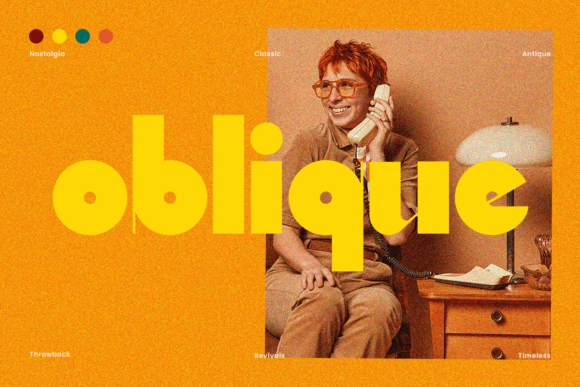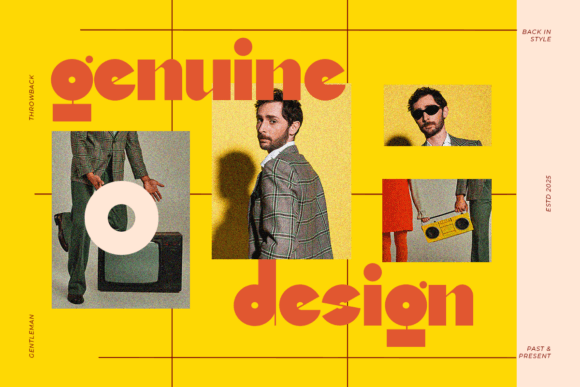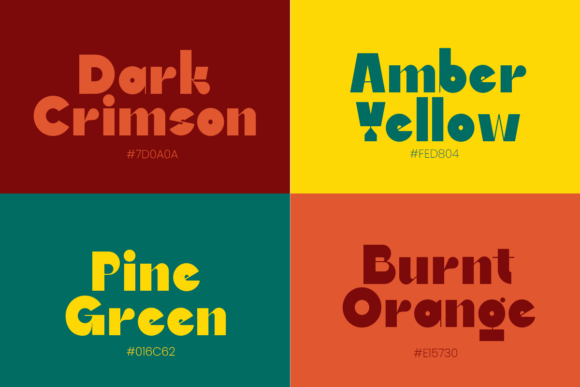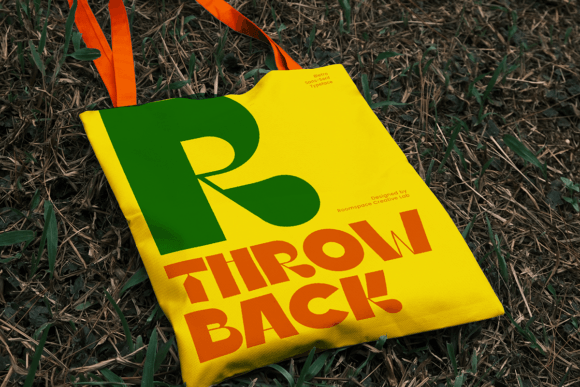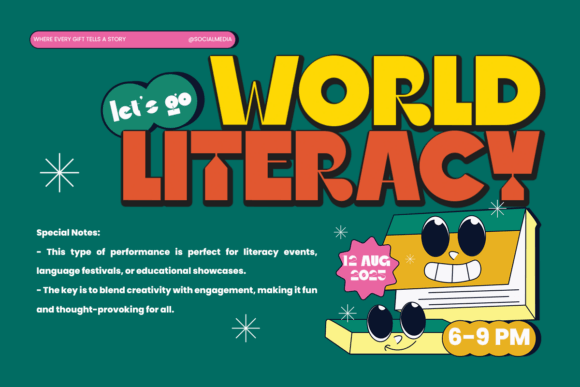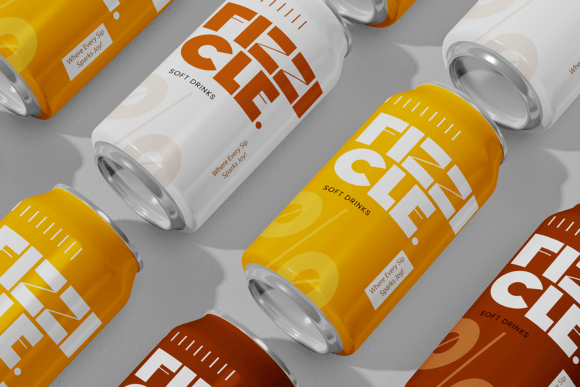
The Designer’s Delight: Bletro Font
I’ll never forget the time I was working on a branding project for a trendy coffee shop. My client wanted a font that was both modern and nostalgic, but I was struggling to find the perfect fit. That’s when I stumbled upon Bletro Font, a stunning sans-serif display font that perfectly balances modern and retro aesthetics. In this article, I’ll share my experience with Bletro, its features, and how to make the most of it in your design projects.
An Honest Review of Bletro Font
• ✨ Unique charm: Bletro’s geometric shapes, bold thickness, and sharp angles give it a distinct personality that’s hard to ignore.
• ✅ Versatility: This font seamlessly adapts to various design projects, from vintage-inspired posters to modern branding materials.
• 💡 Elegance and style: Bletro combines elegance and stylish font design, making it perfect for graphic design, decorative typography, or minimalist font projects.
While Bletro is an excellent font, it’s not without its quirks. For instance:
• 🤔 Limited legibility at small sizes: Bletro is best used at larger sizes (30px and above) to maintain its impact and legibility.
• ⚠️ Not suitable for body text: Due to its bold thickness and geometric shapes, Bletro is not ideal for body text or lengthy paragraphs.
The Backstory of Bletro Font
Bletro Font was designed with the goal of creating a unique and versatile typeface that blends modern and retro elements. The designer aimed to craft a font that would be both elegant and bold, making it suitable for a wide range of design applications. While the designer’s identity remains anonymous, their inspiration likely came from the world of art deco and geometric design.
A: Bletro Font is ideal for branding, posters, headlines, and creative designs that require a bold and eye-catching typeface.
A: Bletro Font is a single-weight font, but its bold thickness and geometric shapes make it versatile enough to be used in various design contexts.
A: No, Bletro Font is not suitable for body text or lengthy paragraphs due to its bold thickness and geometric shapes. It’s best used for headlines, titles, or short text elements.